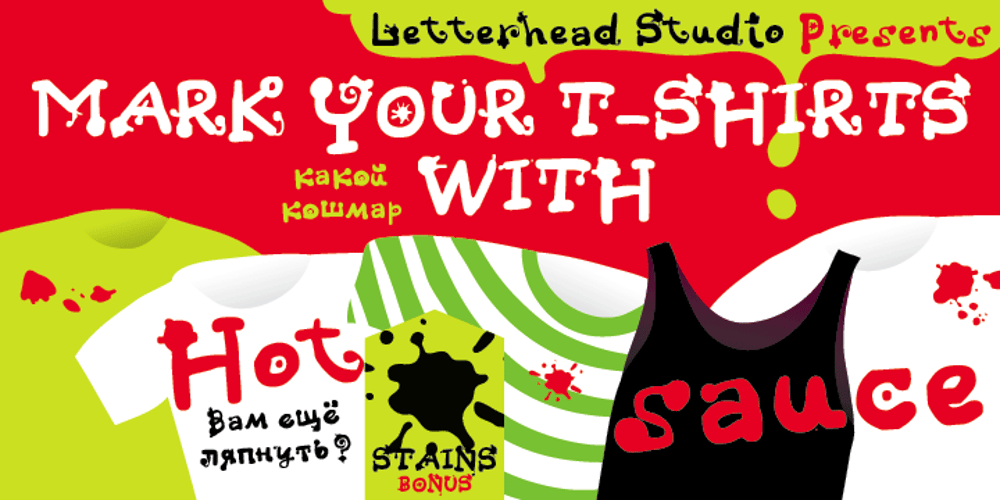
Hot Sauce Font Family was designed by Yuri Gordon and published by Letterhead Studio-YG. Hot Sauce contains 1 styles and family package options. Bistro and Hot Sauce have been prepared quickly. In Bistro you will find 10 fine traces from coffee cups, and in HotSauce 10 pleasant-for-eyes stains from sauce. Both fonts are created in the 1998. OpenType revision, with extended Latin characters, made in 2009.